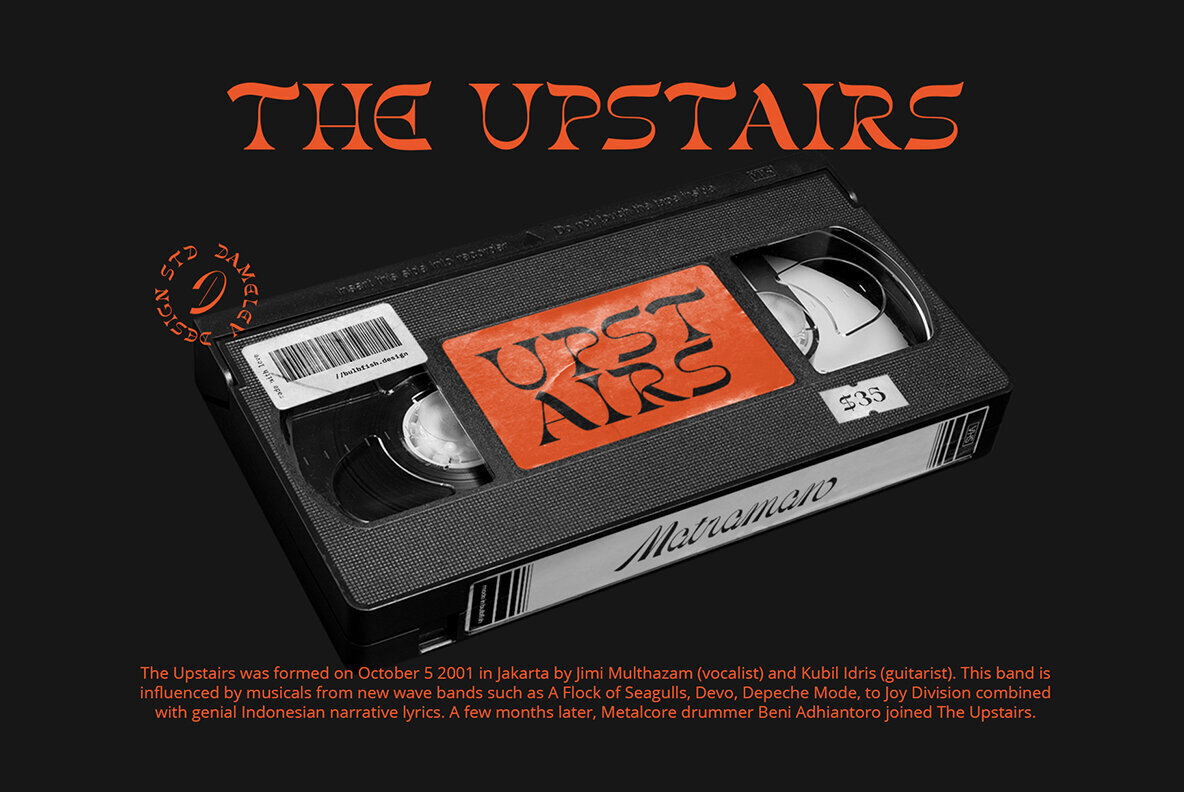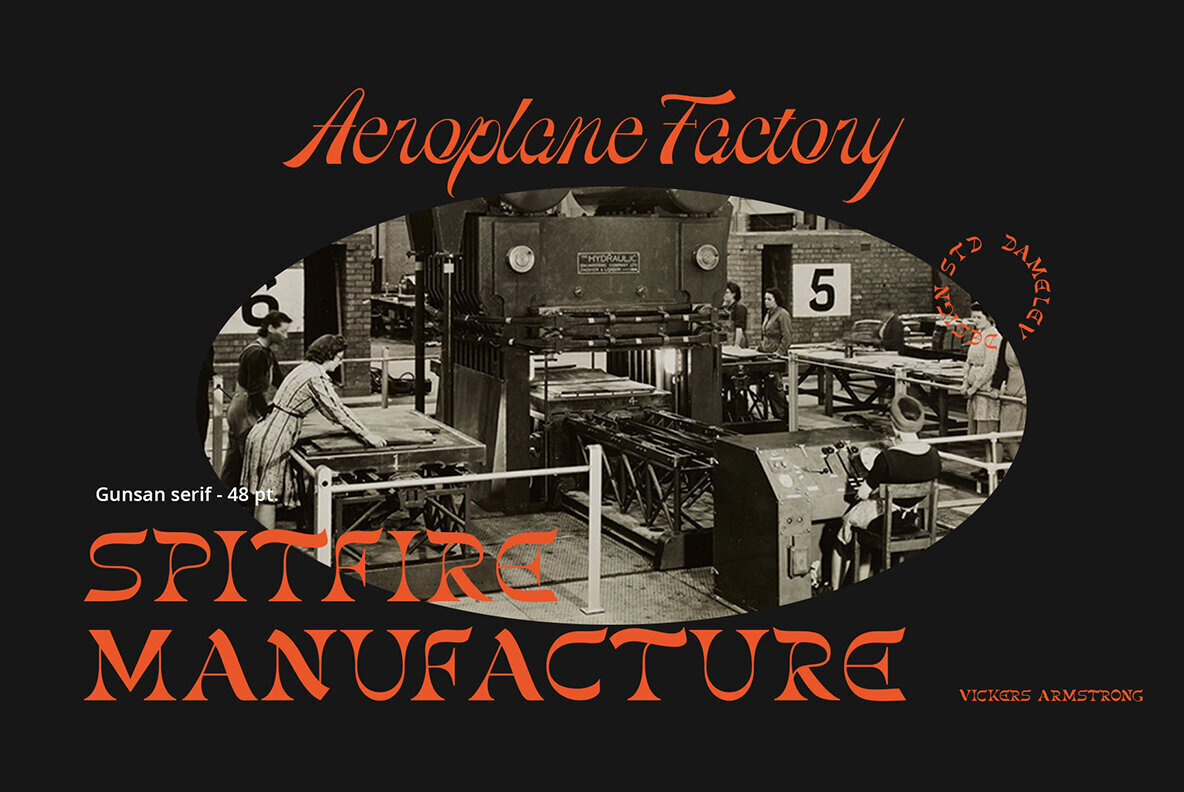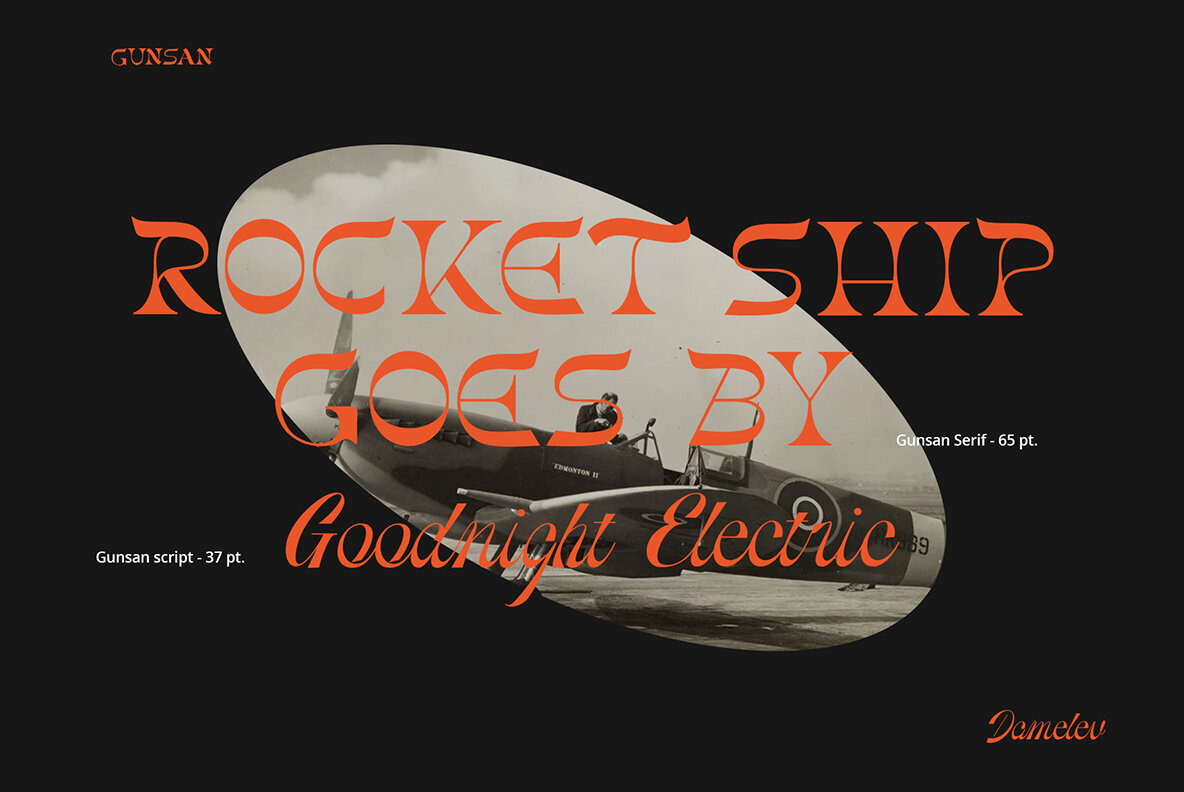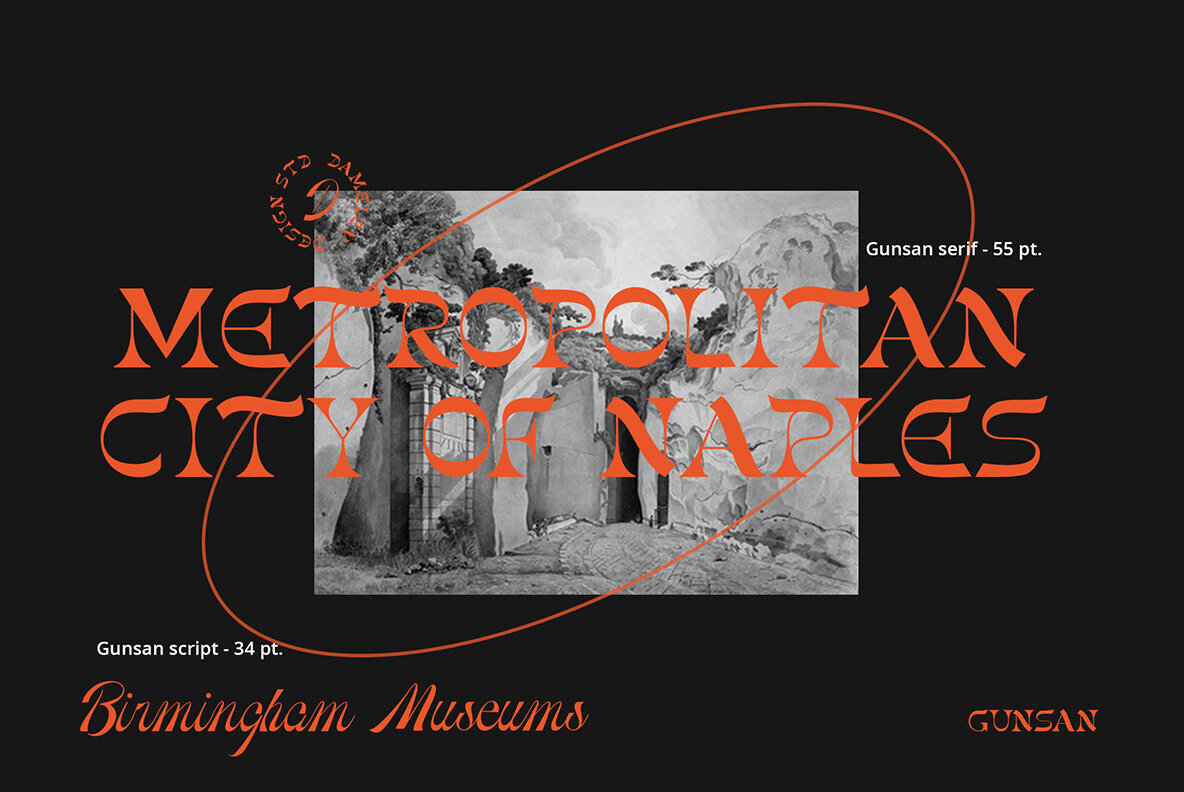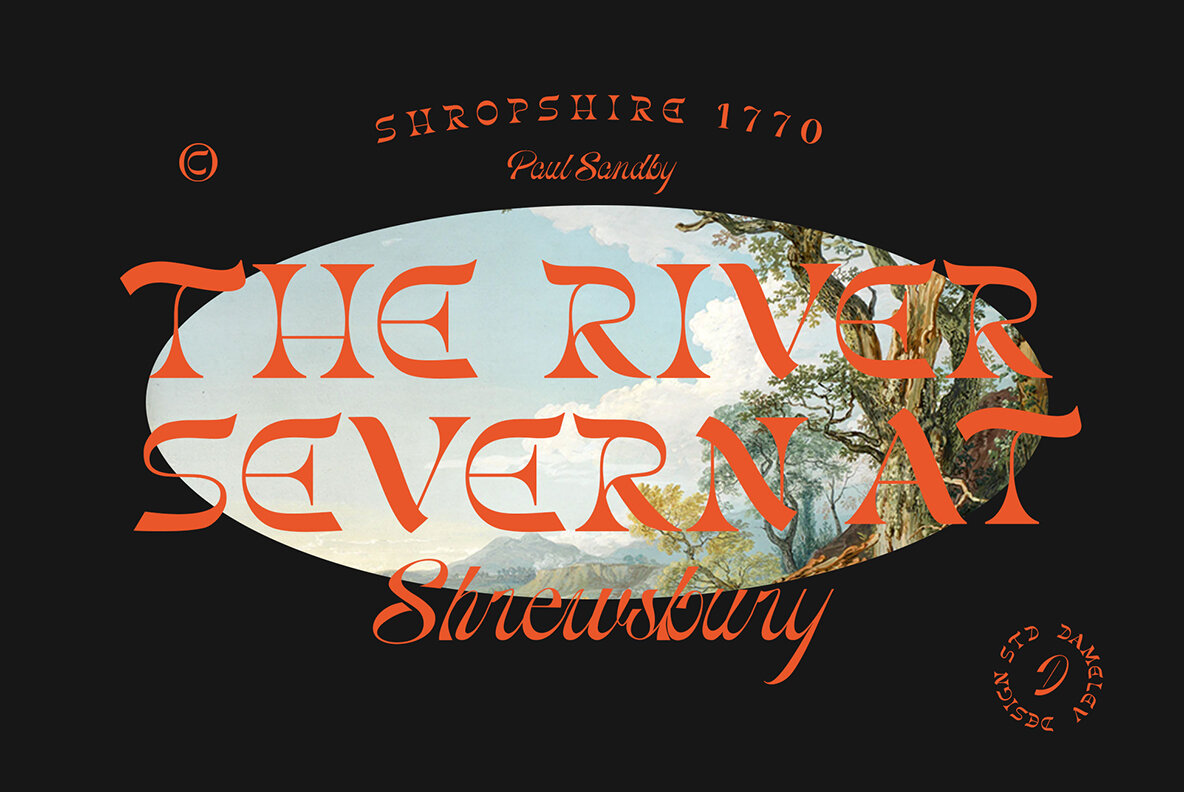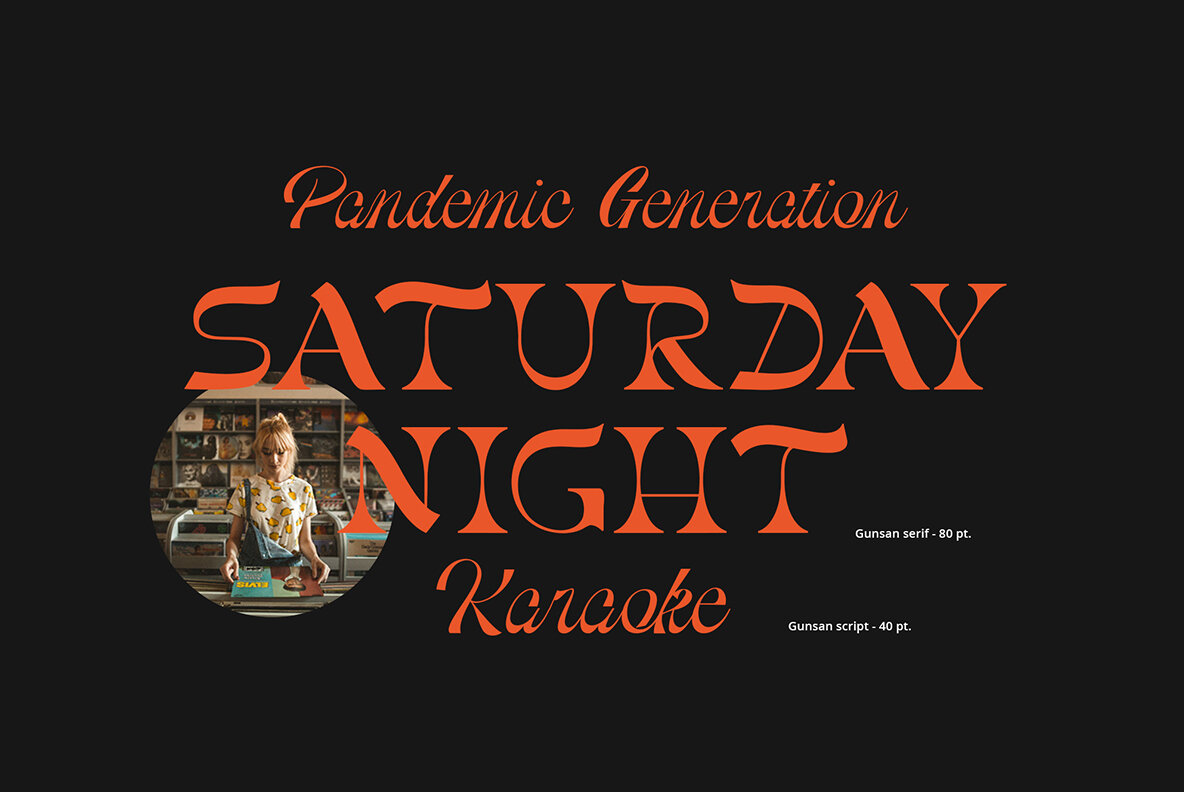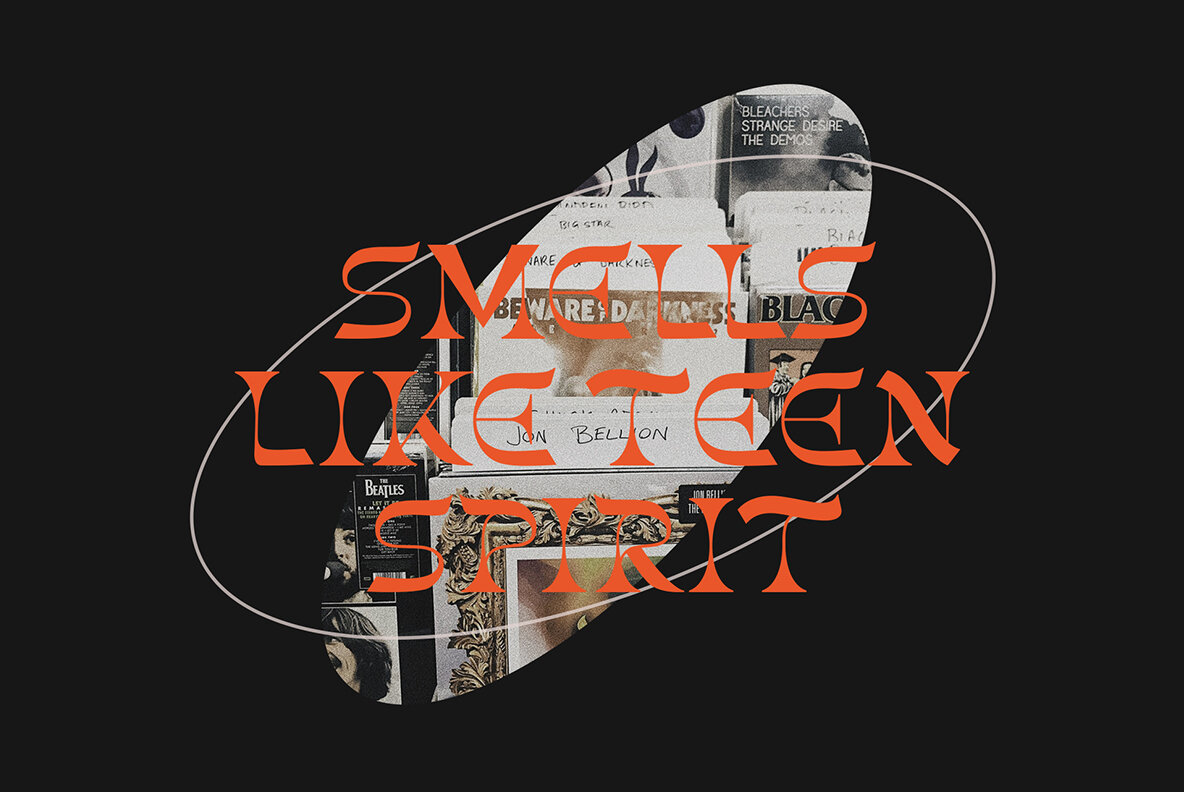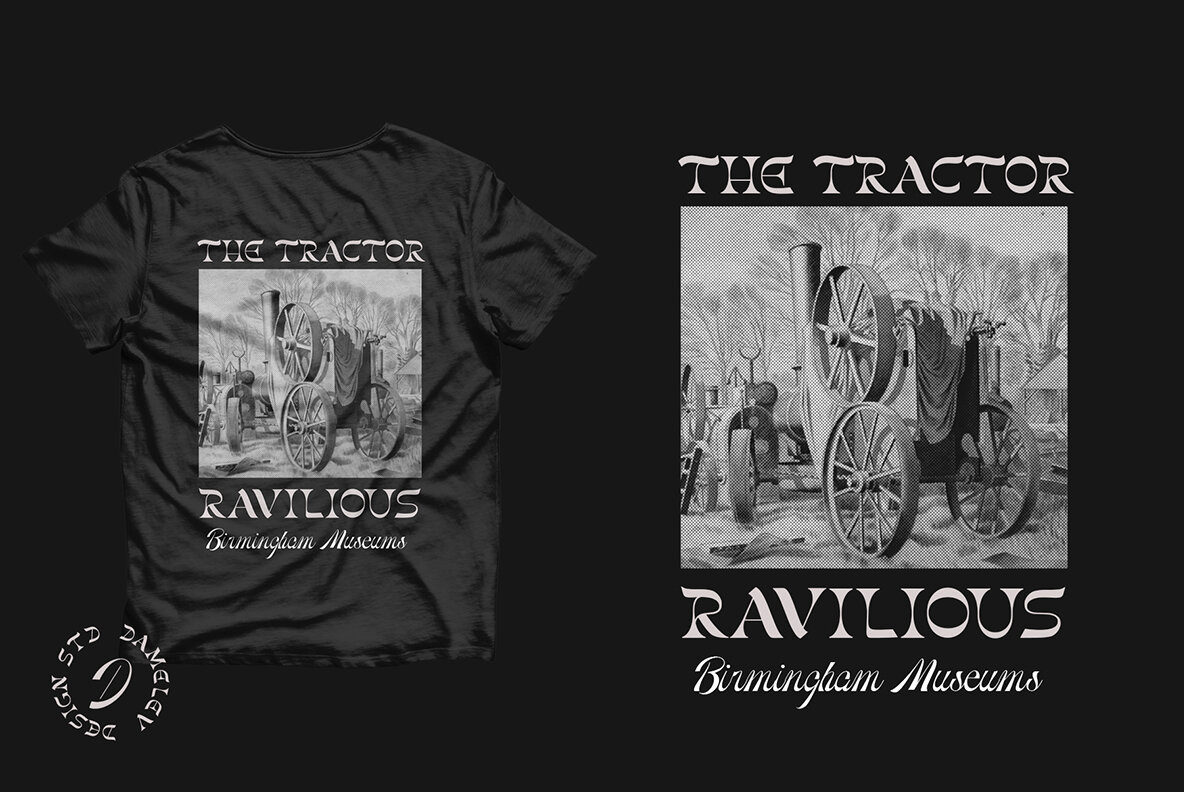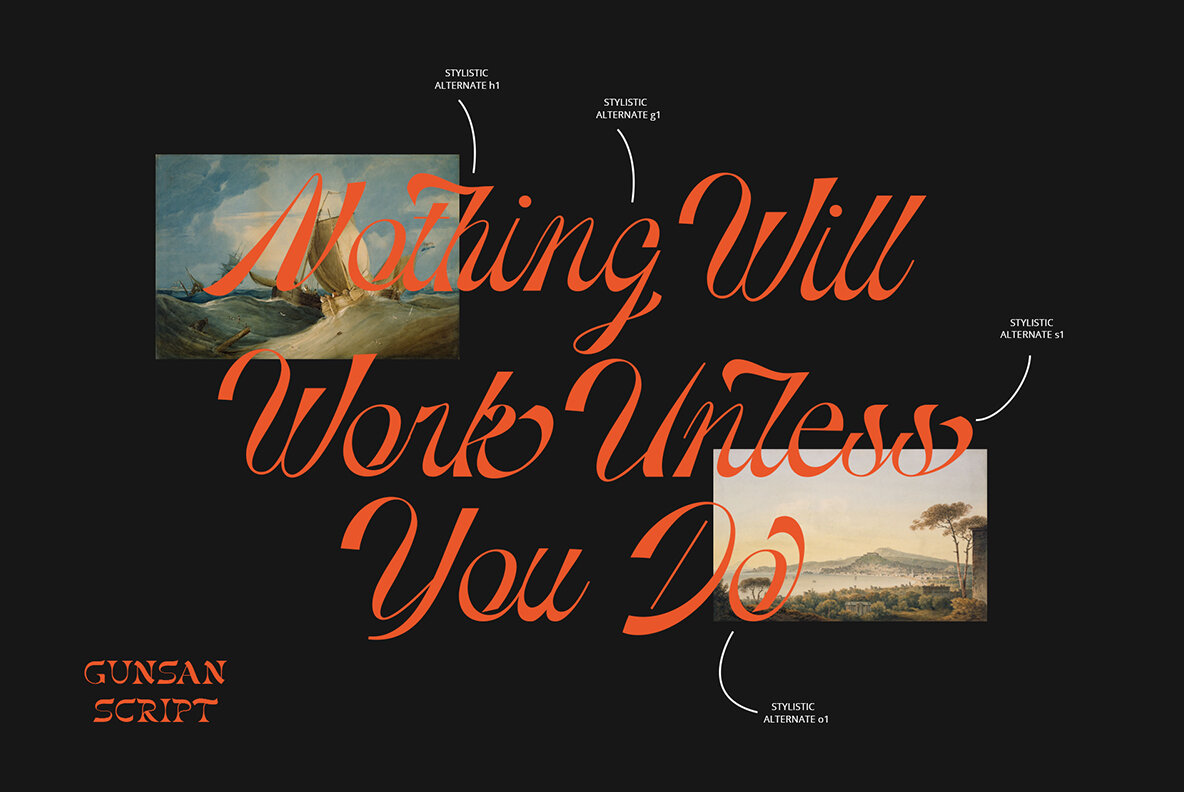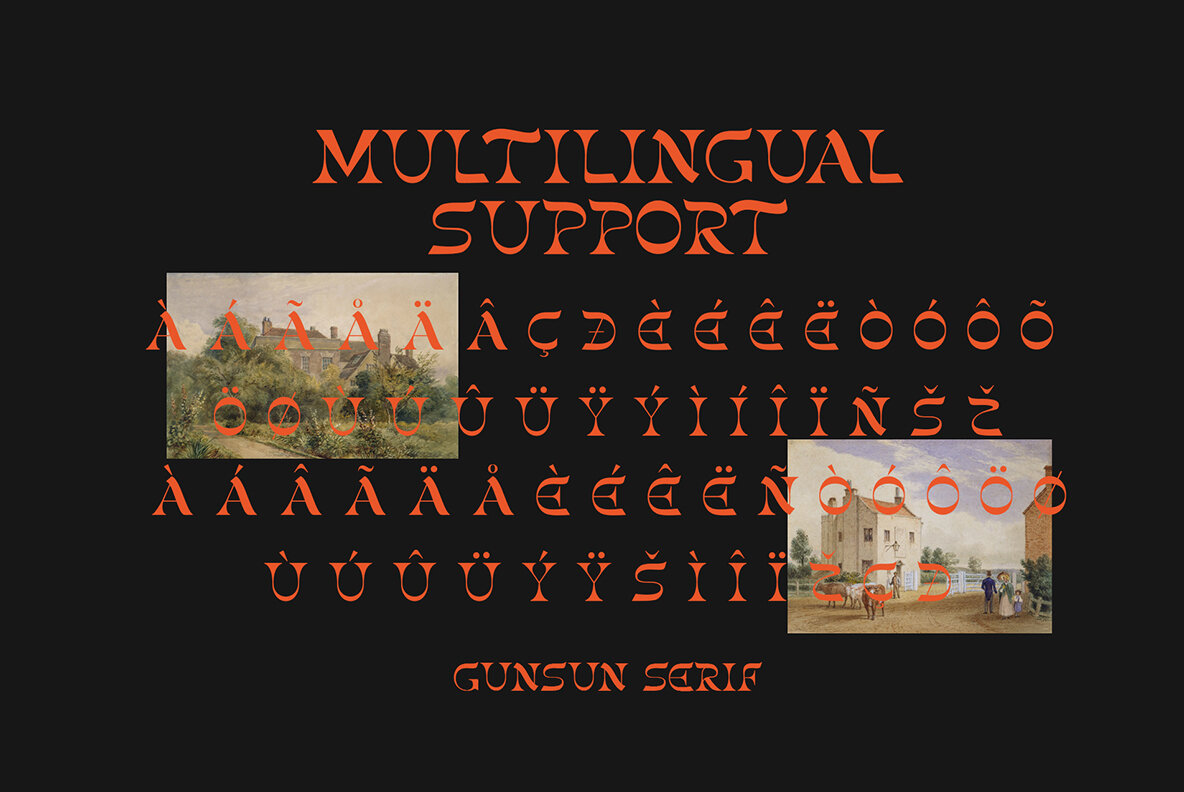
Gunsan Font Duo 1
Gunsan Font Duo has a sophisticated look that will make your designs stand out. It comes with both modern and vintage styles applied to it, making it perfect for any design project you have on hand from logos to t-shirts/apparel or even prints!